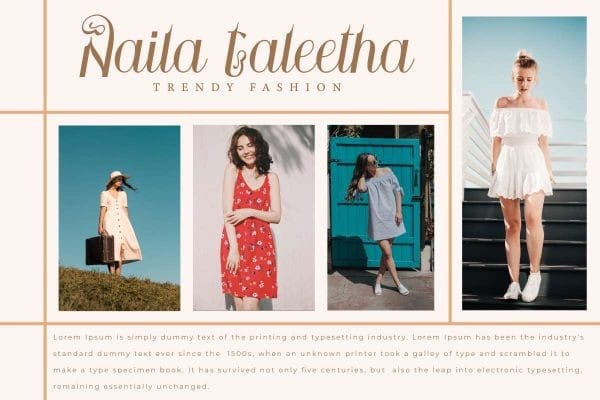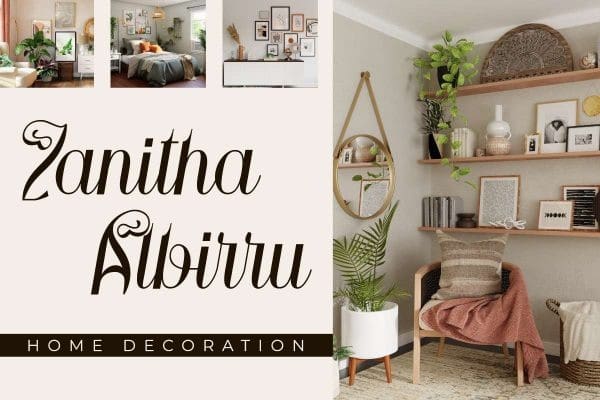
Wondersun Font
Wondersun Font is an aesthetic and lovely script display font with special cursive and curly shapes on the letter. Each uppercase letter in this font has additional curvy lines in an abstract style that will add beauty to your designs, such as brand image, business card, cover, custom design, invitation, label, poster, product packaging, quote, web, and more!
Wondersun Font includes a full set of Uppercase and Lowercase Letters, Numerals, large range of Punctuation, and Ligature characters. This beautiful and stylish font will be suitable for various industries, such as accessories and jewelry, advertisement, beauty product, event or wedding organizer, fashion, florist, photography, printing, publishing, etc.